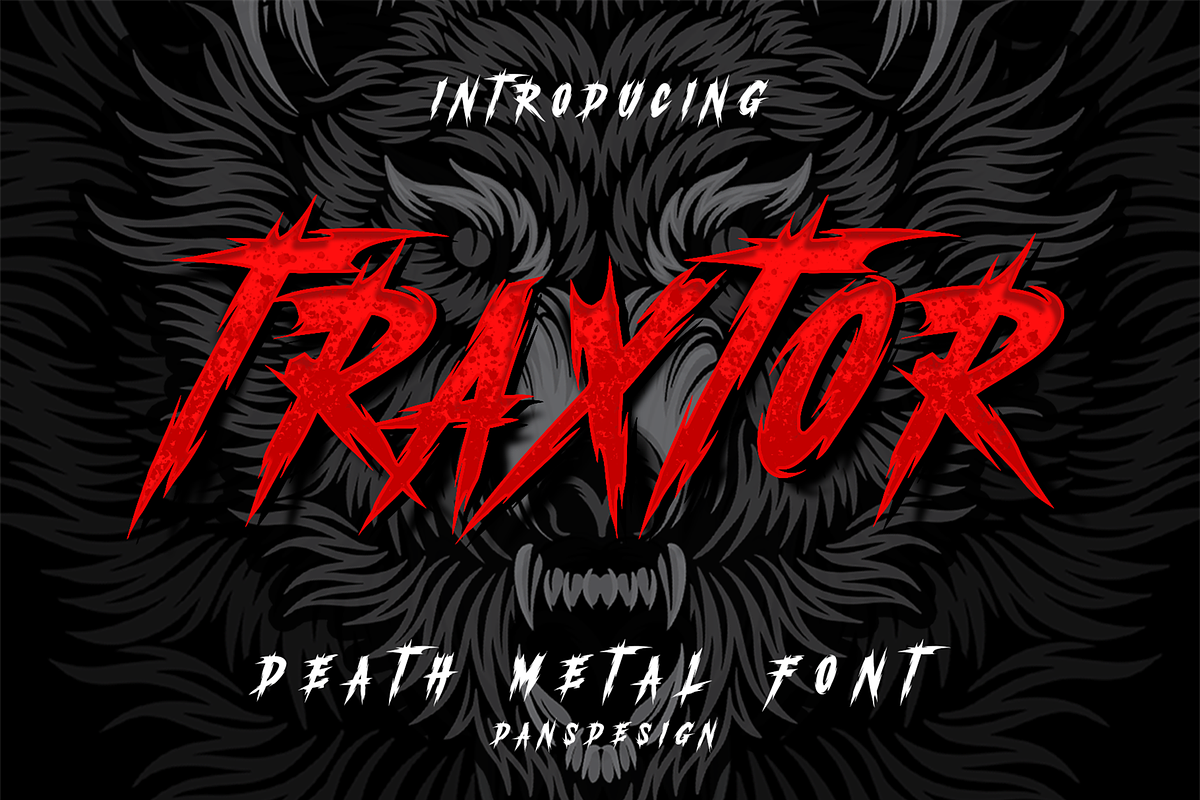
TRAXTOR Modern Metal Font Free Download
TRAXTOR Modern Metal Font Free Download is a powerful and edgy typeface built for bold statements and heavy impact. Inspired by modern metal music, industrial design, and aggressive aesthetics, this font features sharp angles, thick strokes, and an unmistakable intensity—perfect for band logos, album covers, gaming graphics, event posters, and merchandise.
With its futuristic yet brutal feel, TRAXTOR is designed to dominate your visuals with strength and authority. Whether you're creating for a hardcore audience or want to add a fierce, high-octane vibe to your design, this font delivers hard-hitting results.
Crank up the visual volume with the raw power of TRAXTOR.